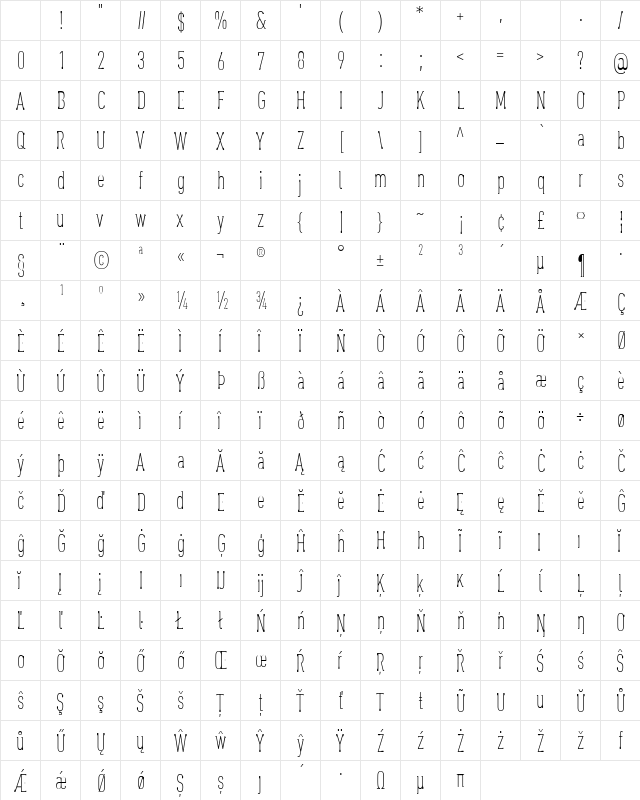
Complete Oaxaqueall Tall Condensed glyph index. Displaying only characters natively supported by Oaxaqueall Tall Condensed font.
Oaxaqueall is a composed and adaptable typeface that performs quietly and consistently across a wide range of design contexts. Its narrow stance lets it pack a punch even in space-constrained designs.